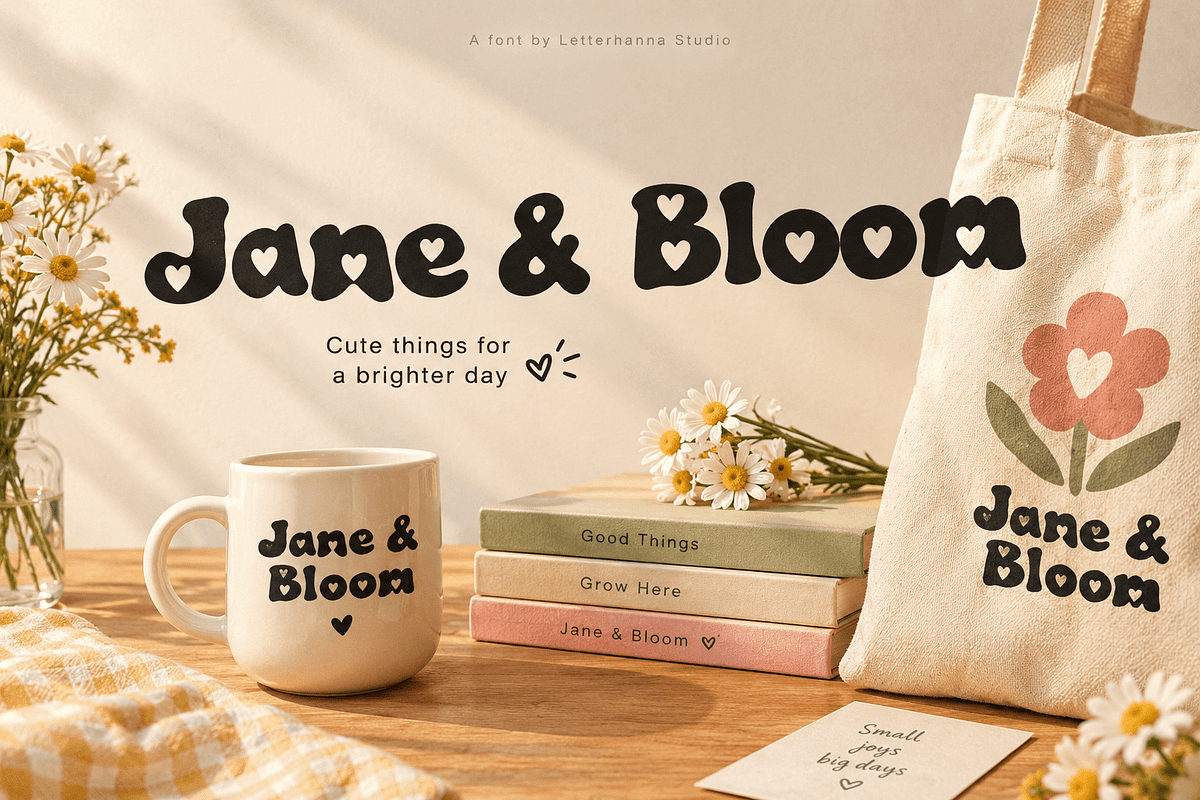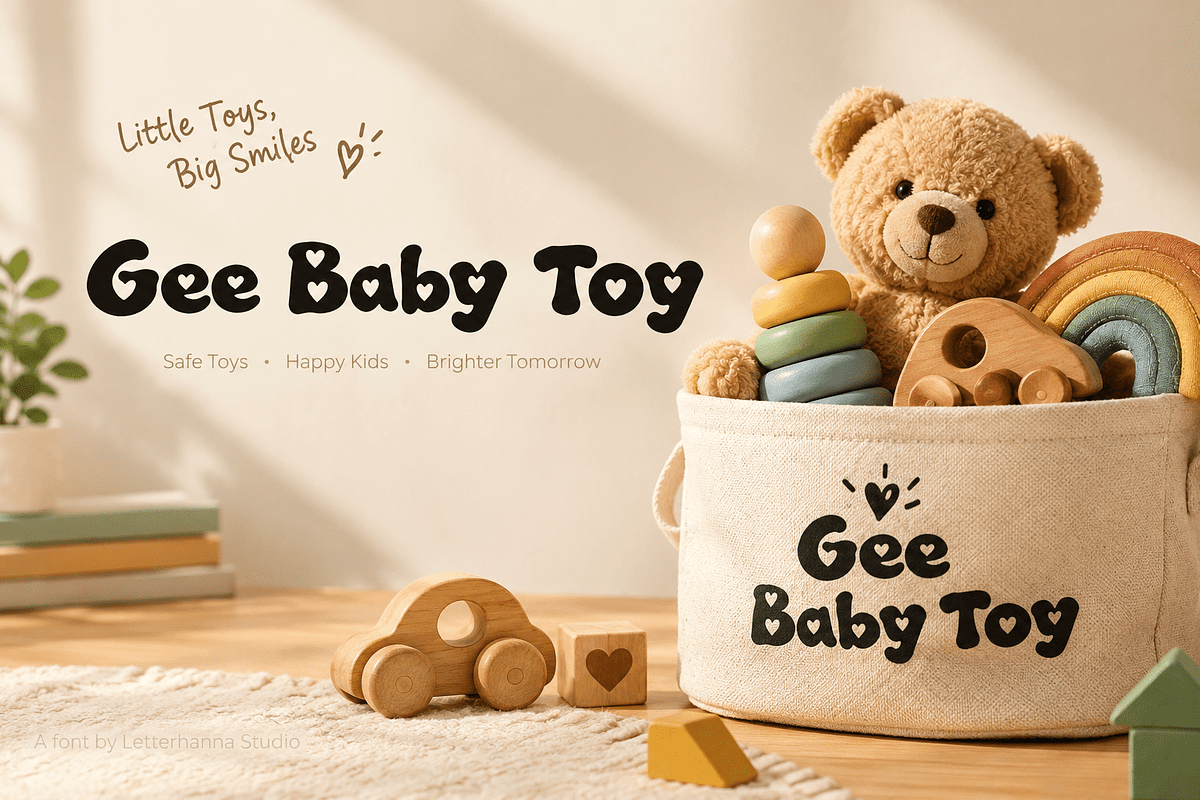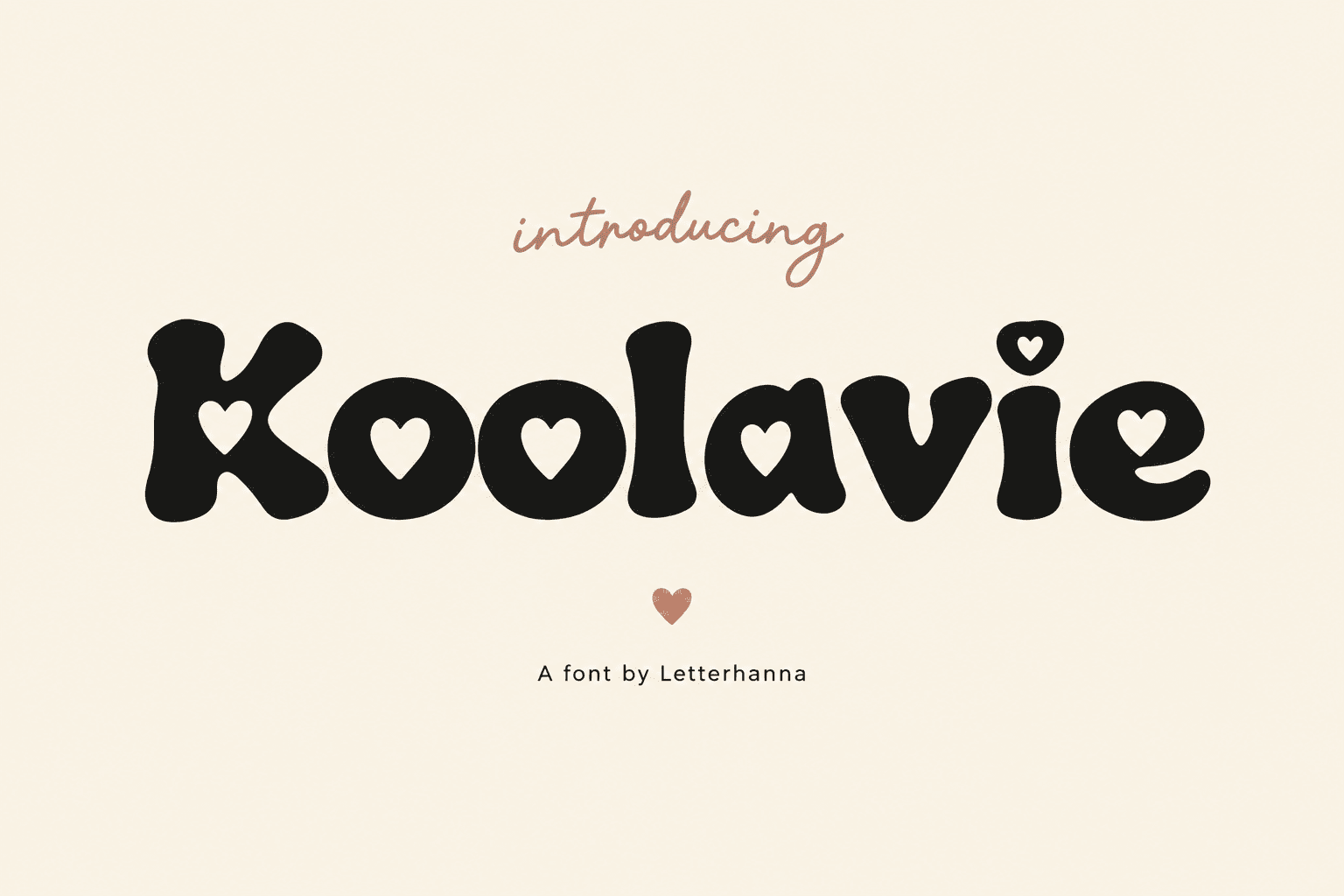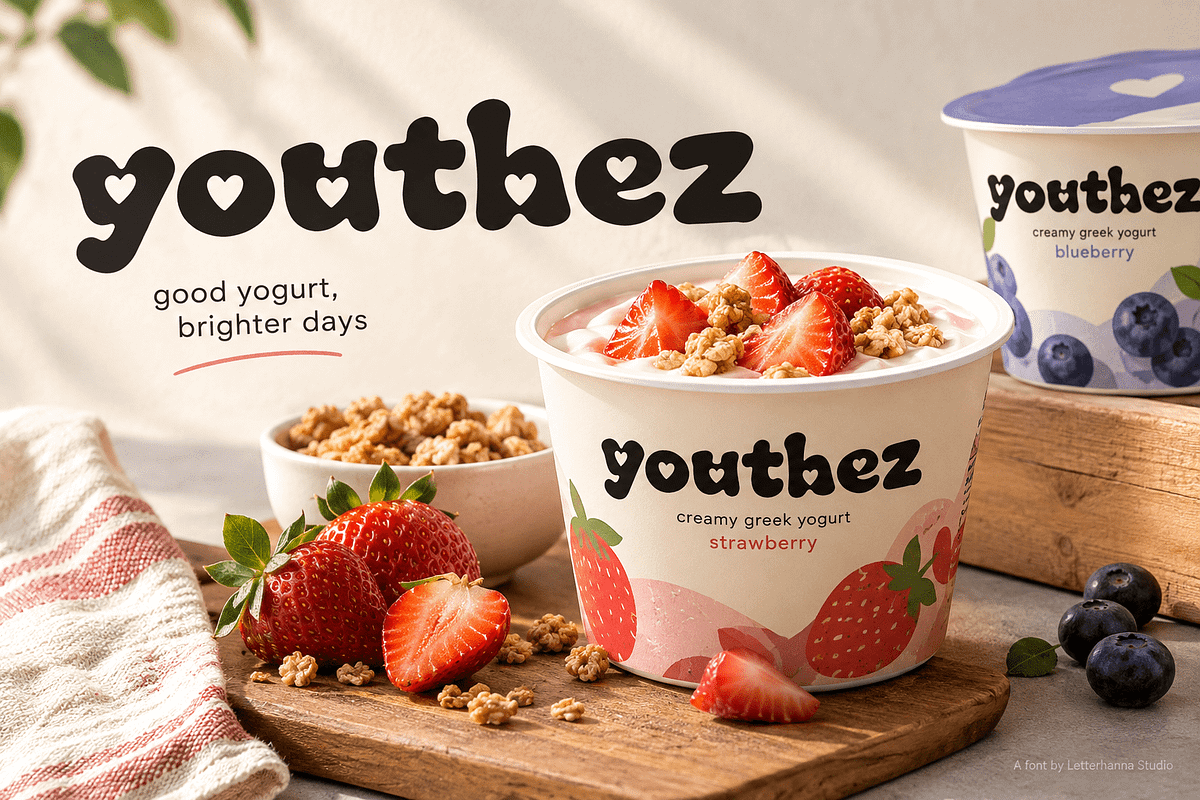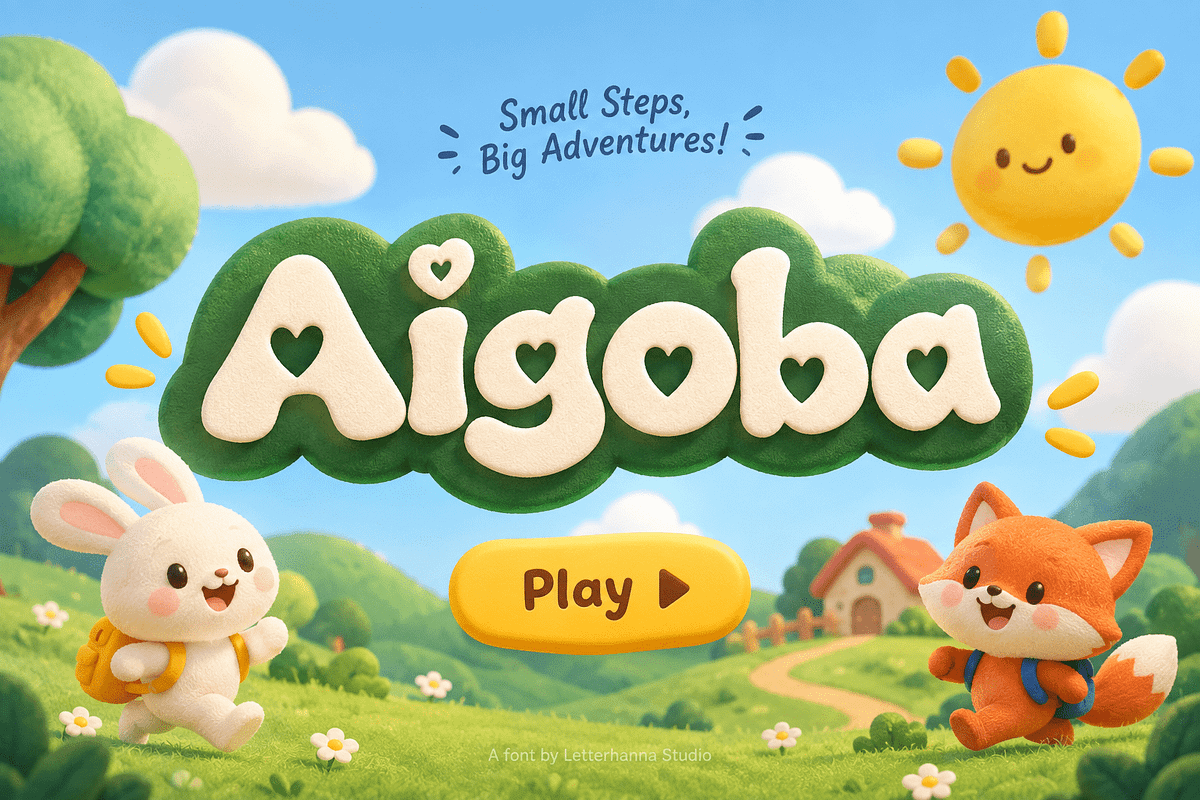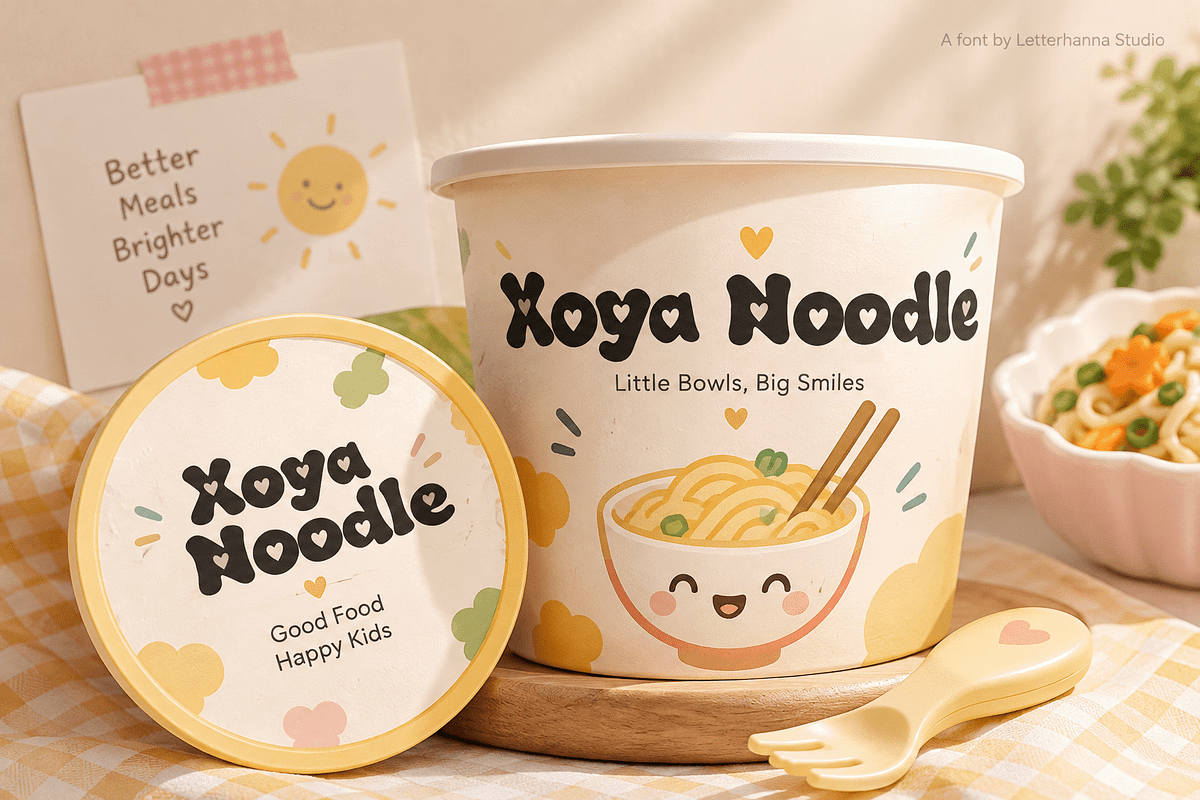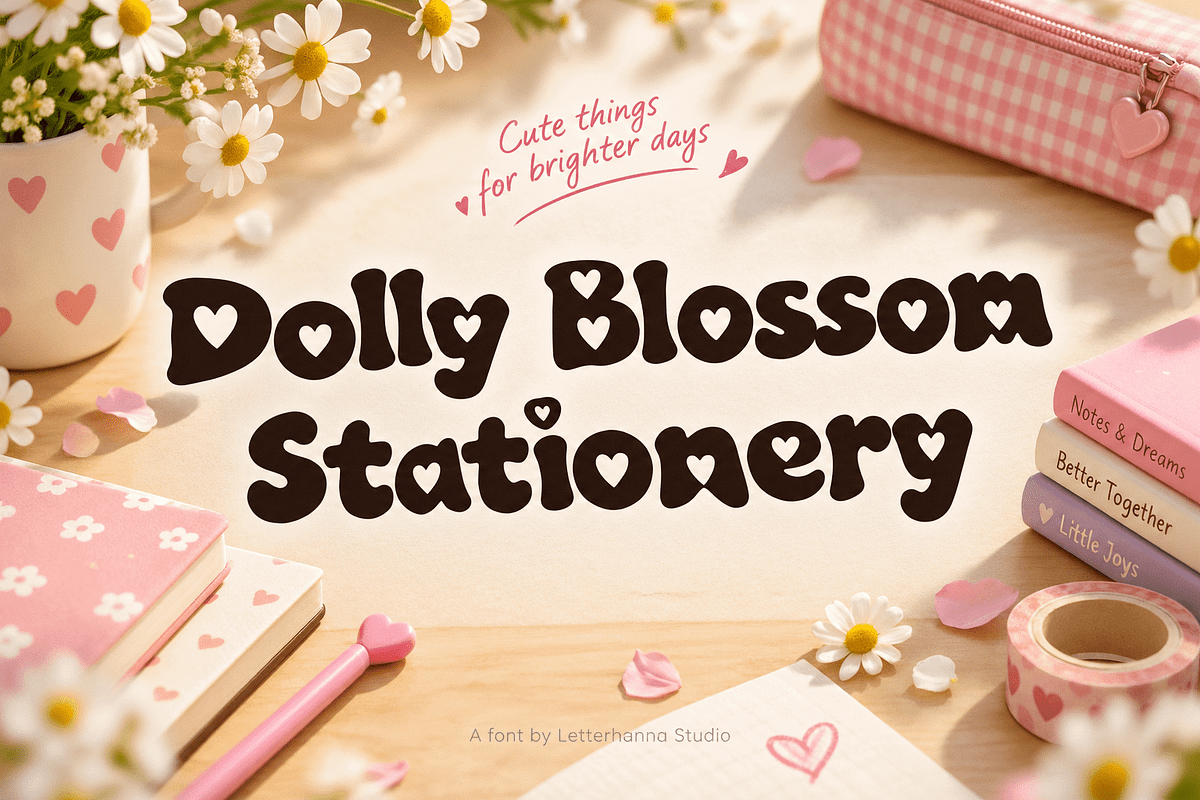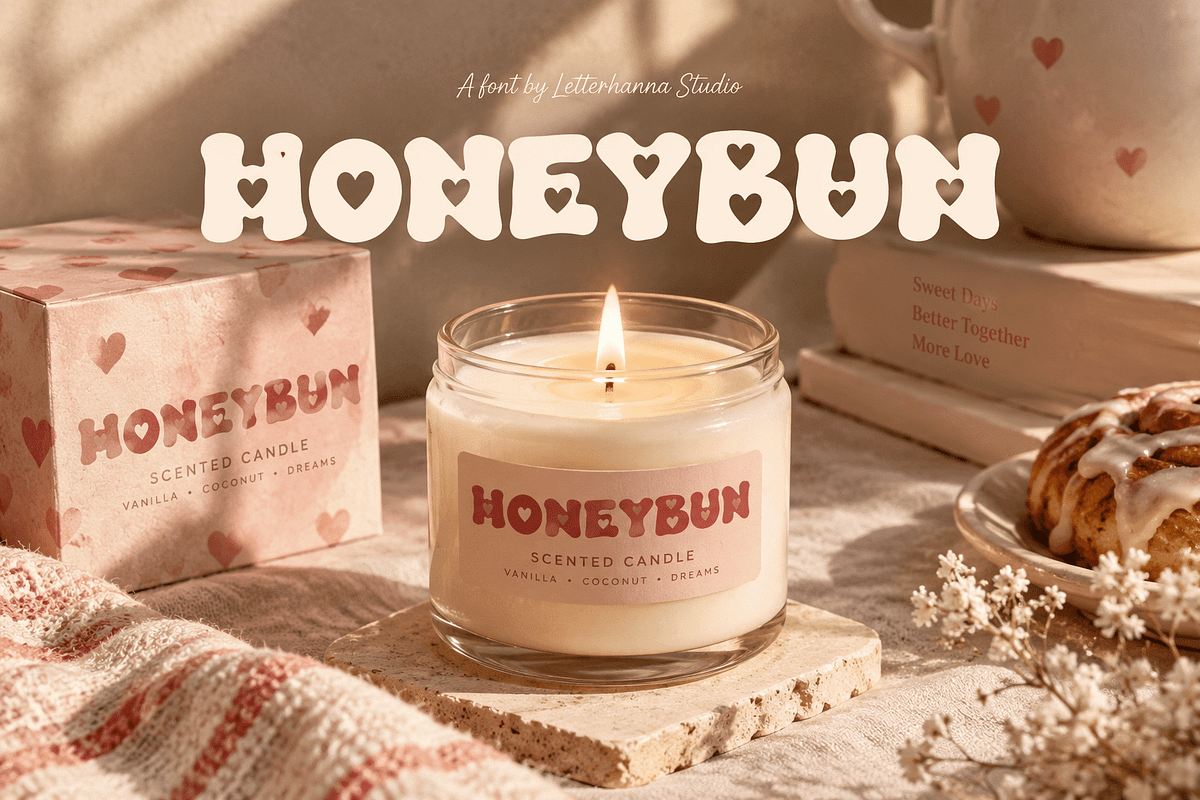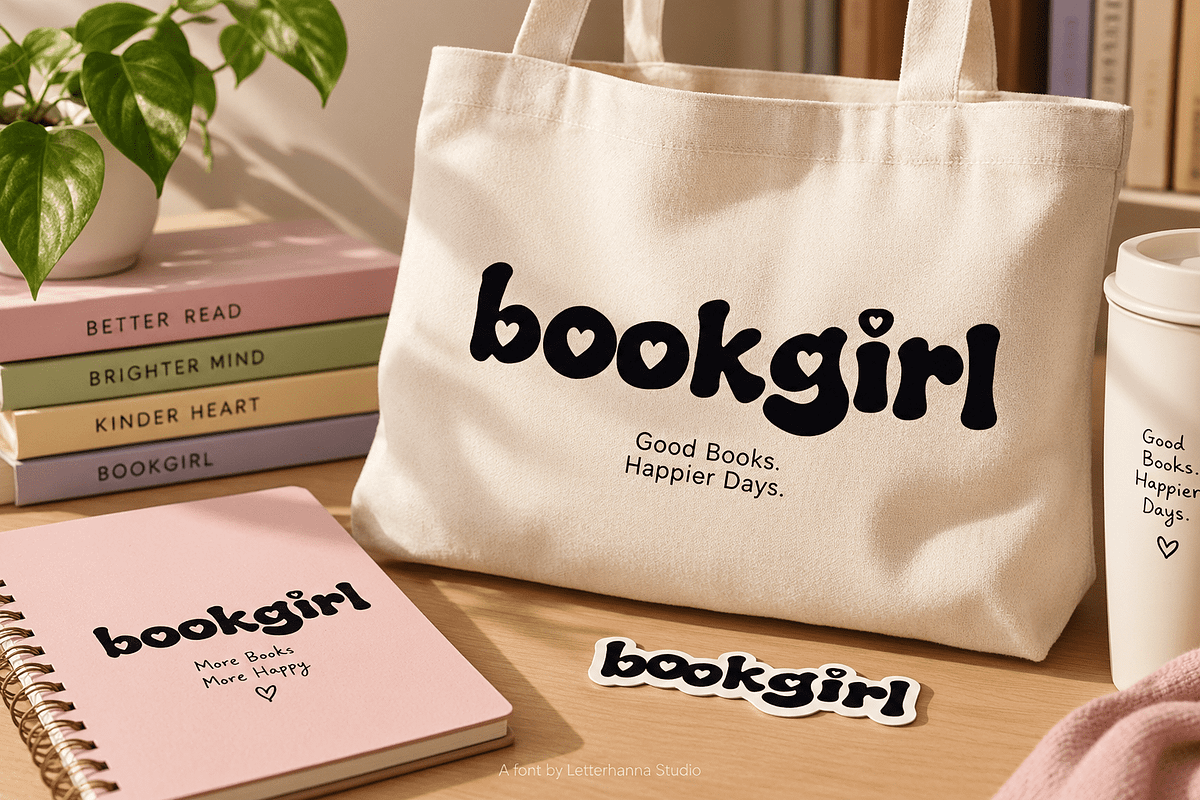
Koolavie - A Playful Bubble Font
Ever scrolled past a brand and stopped just because the logo looked happy? That's the power of Koolavie, a chunky bubble font with tiny heart-shaped counters that turns ordinary text into something instantly huggable — before a single word is even read.
The Koolavie Style
Koolavie blends retro groovy curves with a modern kawaii twist. Every rounded letterform feels soft, bold, and full of personality — the kind of type that makes people smile on sight.
Key style traits:
Ultra-bold, chunky letterforms
Heart-shaped negative space in counters
Smooth, bubbly curves with a 70s groove
Strong legibility even at large display sizes
Where Koolavie Shines
This font isn't just cute — it's strategic. Brands selling comfort, joy, or playfulness need type that does emotional heavy lifting instantly.
Candle and home fragrance labels
Kids' toy and app branding
Stationery, totes, and merch
Food packaging (yogurt, snacks, bakery)
Cozy lifestyle and book-lover brands
The Vibe
Koolavie feels like sunshine on a Saturday morning — warm, nostalgic, and a little mischievous. It's the font equivalent of a wink.
Why It Works
Most brands blend in because their type is forgettable. Koolavie interrupts the scroll. Those heart cutouts aren't decoration — they're a quiet emotional trigger that makes packaging and posts feel instantly more inviting.